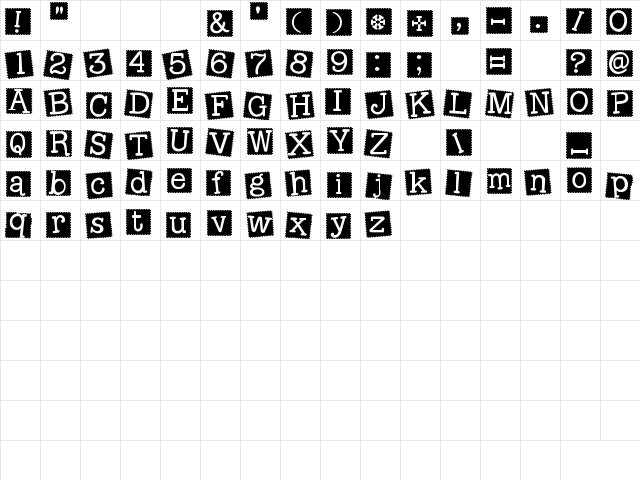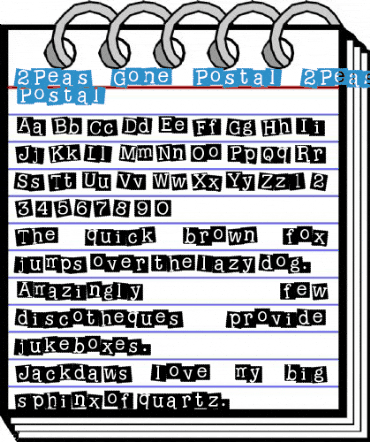
2Peas Gone Postal 2Peas Gone Postal Free Font
Foundry: High-Logic
Designer: High-Logic - Erwin Denissen 1999
Design Context for 2Peas Gone Postal
2Peas Gone Postal is a composed and adaptable typeface that performs quietly and consistently across a wide range of design contexts.
Who designed the 2Peas Gone Postal 2Peas Gone Postal font?
This font was published by High-Logic. Check the technical specs section for copyright and designer details.